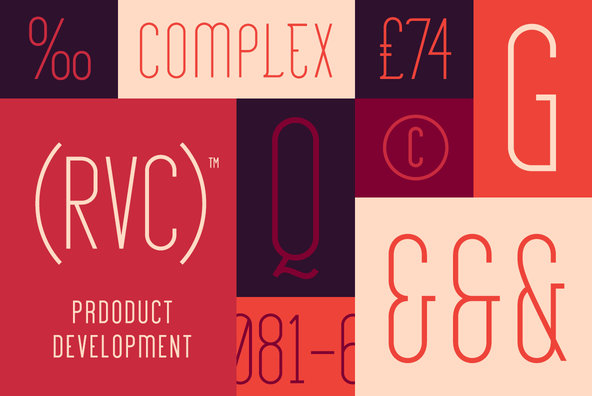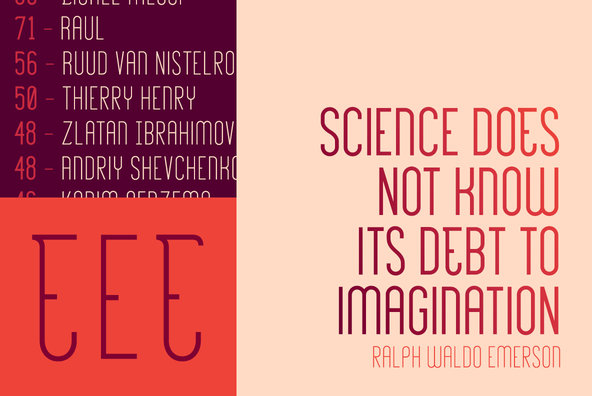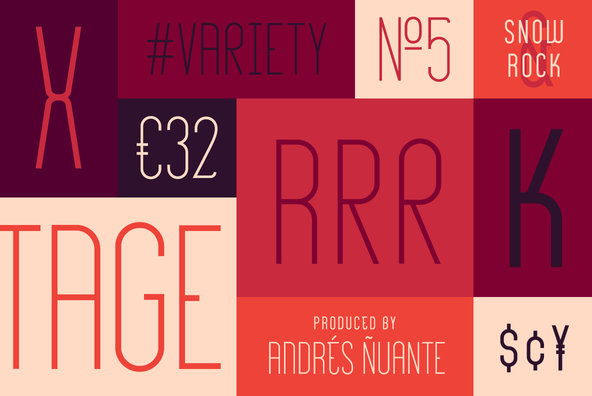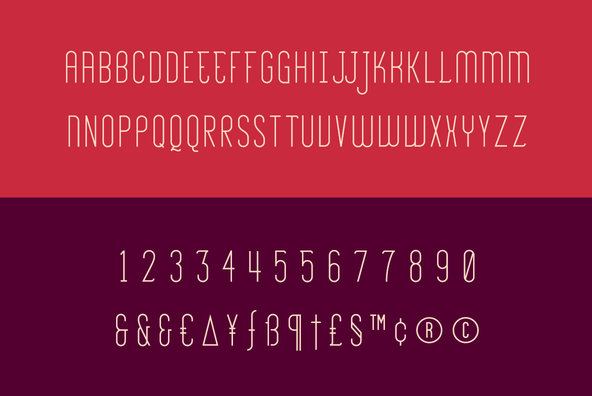
Roehampton
Roehampton is a classy, condensed, sans serif font available in 2 weights - Avenue & Boulevard. With over 280 glyphs, Roehampton is as versatile as it is stylish.
Roehampton is a classy, condensed, sans serif font available in 2 weights - Avenue & Boulevard.
With over 280 glyphs, Roehampton is as versatile as it is stylish. It is comprised of all capital letterforms and uses stylistic variants for the lowercase set. It also includes many stylistic alternates, a few ligatures and multilingual characters.
Roehampton works best at larger sizes, for headlines and titles - have a play with Photoshops different 'anti-aliasing' options in order to get the best results.
Roehampton Tips:
- In Photoshop try different 'anti-aliasing' settings for best results.
- Try combining a mixture of uppercase and lowercase letters - it makes the type feel more alive.
- Use the photoshop character panel to change the stylistic alternates and discretionary ligatures.
- All stylistic alternates and ligatures exist on capital letterforms only.
With over 280 glyphs, Roehampton is as versatile as it is stylish. It is comprised of all capital letterforms and uses stylistic variants for the lowercase set. It also includes many stylistic alternates, a few ligatures and multilingual characters.
Roehampton works best at larger sizes, for headlines and titles - have a play with Photoshops different 'anti-aliasing' options in order to get the best results.
Roehampton Tips:
- In Photoshop try different 'anti-aliasing' settings for best results.
- Try combining a mixture of uppercase and lowercase letters - it makes the type feel more alive.
- Use the photoshop character panel to change the stylistic alternates and discretionary ligatures.
- All stylistic alternates and ligatures exist on capital letterforms only.